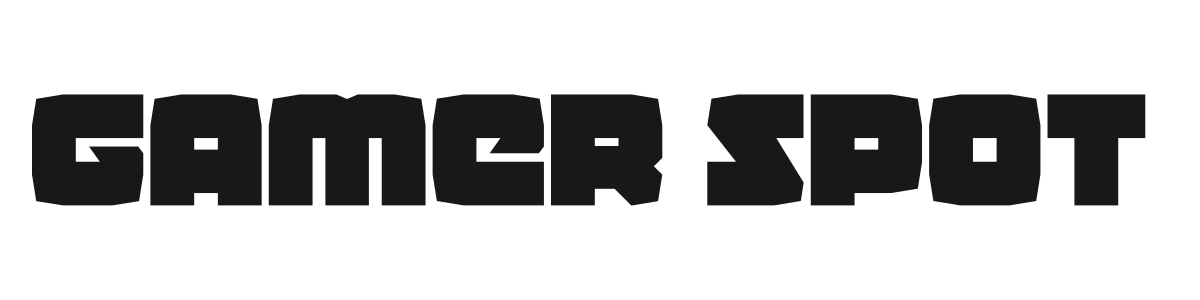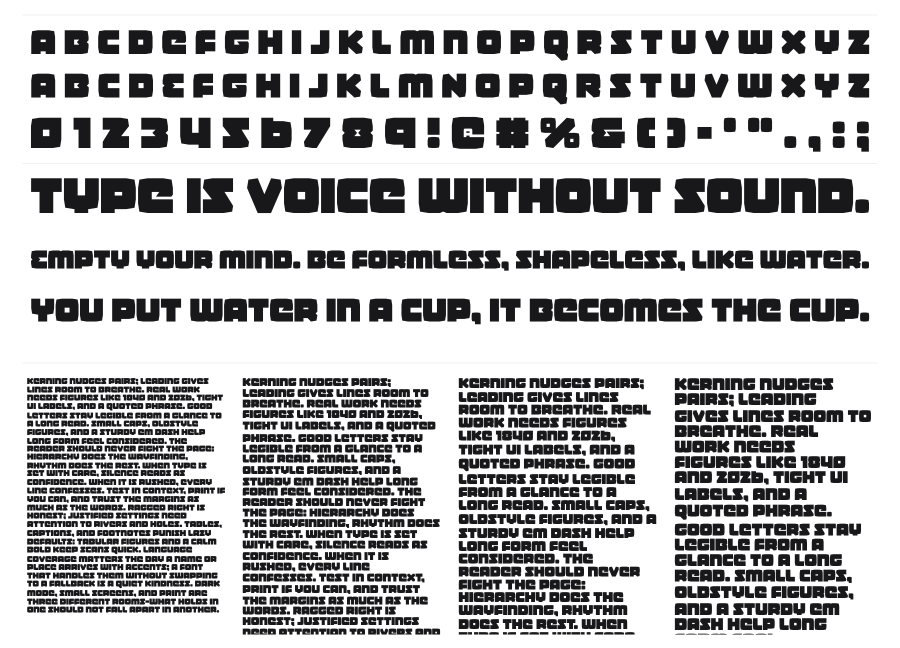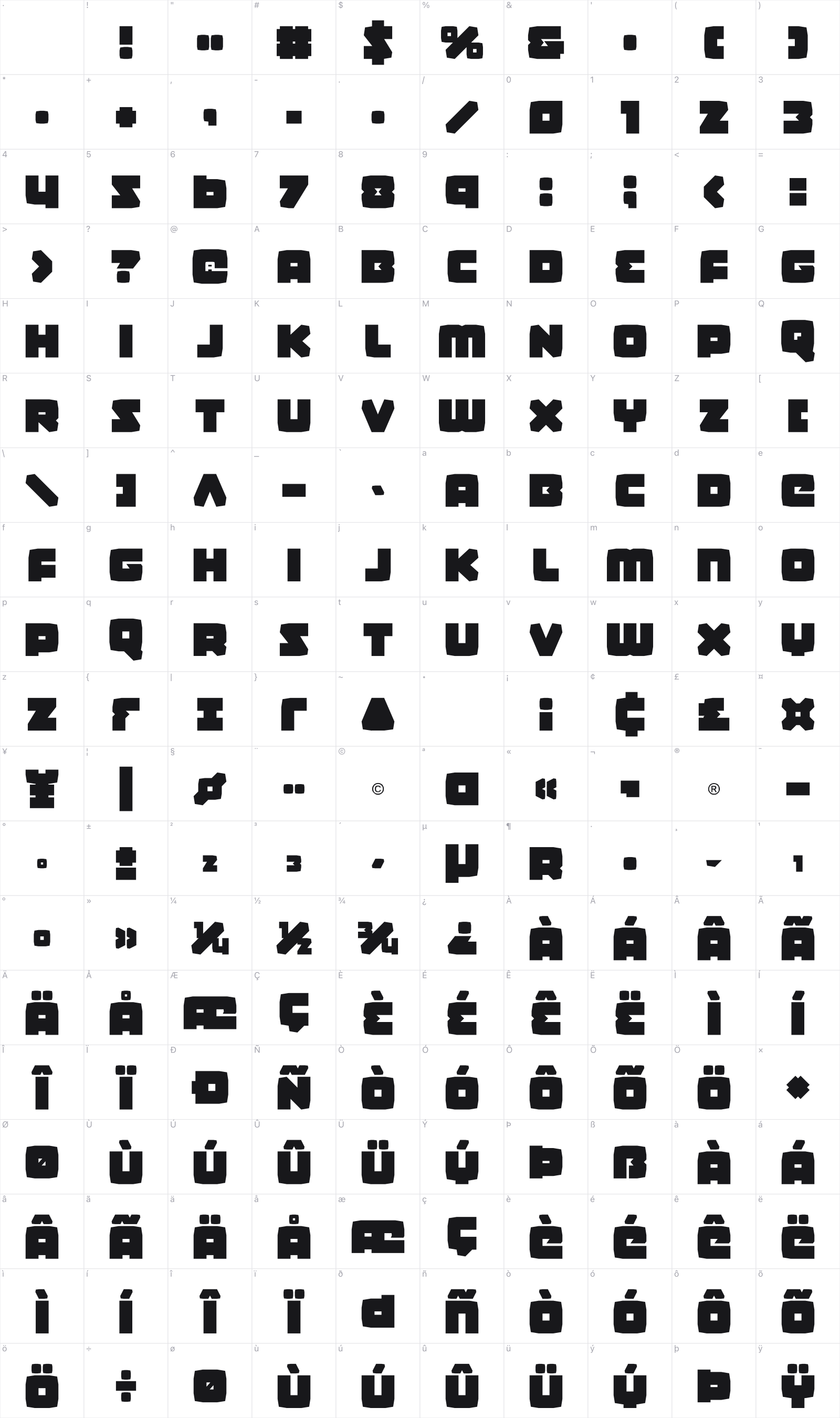
Gamer Spot
Gamer Spot is a heavy display sans built around the visual language of 1980s arcade games, with chunky rectangular forms and angular notches cut into stroke junctions. The weight is extreme, giving headlines a dense, blocky presence that reads clearly from a distance. It comes in an unusually wide range of stylistic variants including 3D, halftone, and gradient versions.